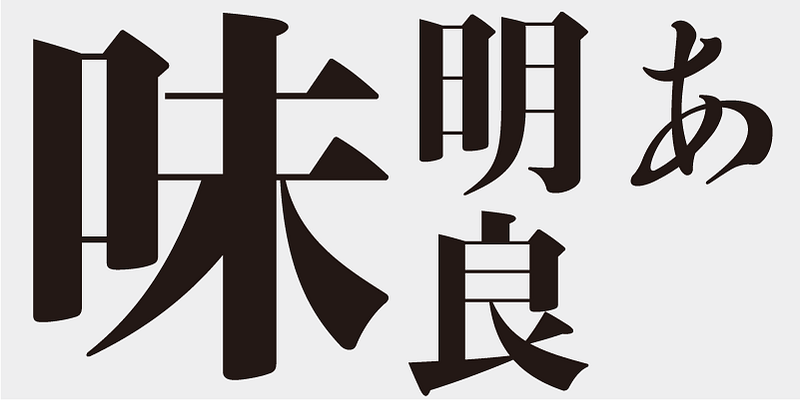
AB Ajimin Modern Ryo/EB Font Free Download
AB Ajimin Modern Ryo/EB Font Free Download is a refined extra bold serif typeface that fuses traditional Japanese Mincho influences with a contemporary, high-impact aesthetic. The Ryo/EB style delivers strong contrast, assertive vertical strokes, and crisp serifs—perfect for editorial titles, elegant branding, book covers, and visual designs that require both sophistication and presence.
This font stands out with its harmonious blend of brush-style calligraphic energy and structured modern geometry. Supporting both Japanese and Latin scripts, AB Ajimin Modern Ryo/EB ensures cohesive bilingual layouts and is ideal for international creative projects that demand clarity and character.